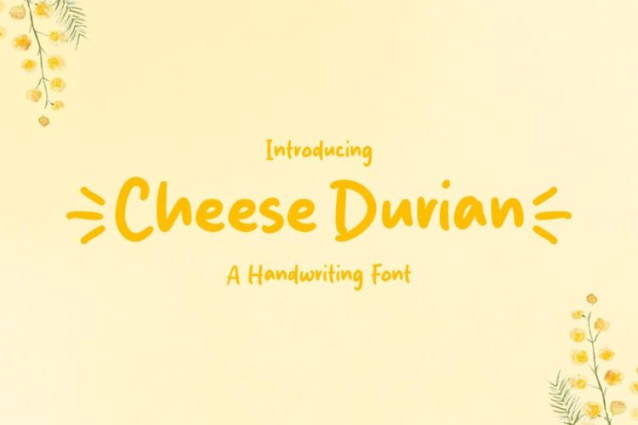
Cheese Durian Font
Cheese Durian Font is a simple and friendly handwritten font. Its natural and unique style makes it incredibly fitting to a large pool of designs. The only limit is your imagination!